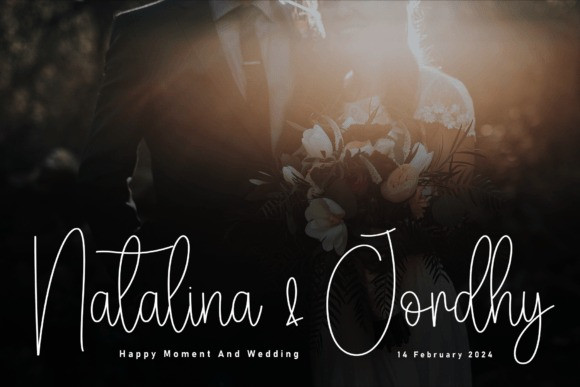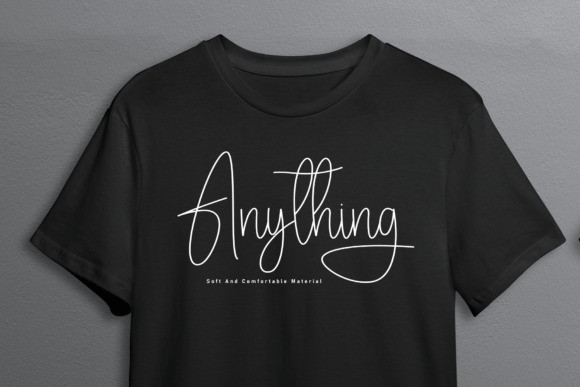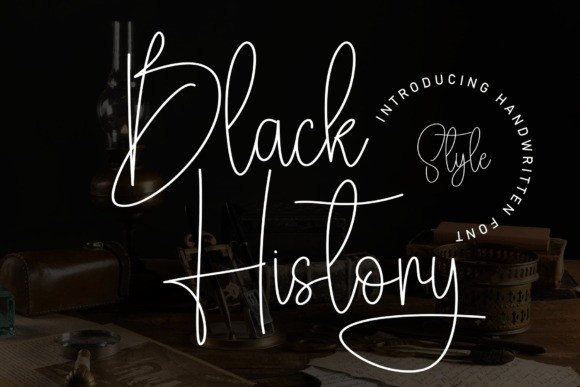
Black History Handwritten Font
Black History Handwritten Font is an elegant and charming thin handwritten font that evokes a sense of sophistication and grace. This font mimics the look of a handwritten script, with each character appearing as if it were carefully crafted by hand. The letters have a natural flow and rhythm, lending authenticity to the handwritten appearance.
Black History’s elegant and charming qualities make it highly versatile. It can be used for a variety of purposes, including branding, invitations, greeting cards, quotes, and social media graphics, adding a touch of sophistication and personality to any design.